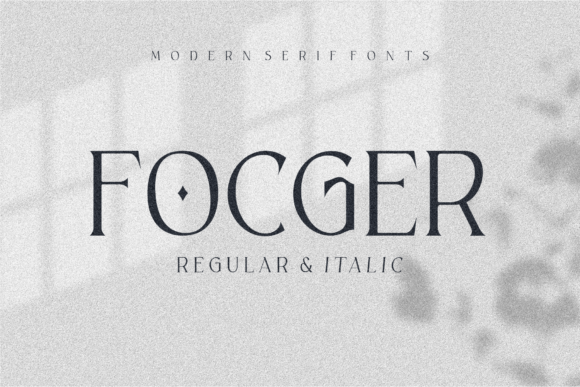
**Introducing Focger: The Captivating Serif Font for Unforgettable Impressions**
In the realm of typography, where words take flight and meanings soar, Focger emerges as a beacon of elegance and distinction. Crafted with meticulous care by the renowned 24Design Studios, this exquisite serif font possesses an inherent charm that captivates the senses and leaves an indelible mark on the digital canvas.
Focger's slender strokes and graceful curves exude an air of sophistication and refinement. As its characters dance across the screen, they evoke a sense of timeless allure, reminiscent of classic literature and treasured heirlooms. This font is a testament to the enduring power of typography, where form and function intertwine seamlessly to create an unforgettable user experience.
Whether you seek to elevate the visual appeal of your web designs, craft unforgettable business cards, or add a touch of sophistication to any creative endeavor, Focger stands as the perfect choice. Its versatility knows no bounds, making it indispensable for a wide range of applications.
With Focger at your fingertips, you unlock the ability to transform ordinary designs into captivating masterpieces. Its thin, elegant silhouette lends itself beautifully to small display sizes, ensuring that your message captivates attention even on the most compact screens. Whether it's a captivating logo, an informative infographic, or an immersive website, Focger empowers you to create visual experiences that resonate with your audience and leave a lasting impression.
Beyond its aesthetic appeal, Focger embodies the essence of storytelling. Its graceful curves and delicate flourishes invite the reader into a world of imagination and inspiration. Each character becomes a vessel for conveying your message with clarity and impact. Whether you're crafting a compelling narrative or sharing important information, Focger ensures that your words command attention and resonate with your audience on a deeper level.
Embrace the allure of Focger today and embark on a typographic journey that transcends the ordinary. Allow its timeless elegance to elevate your designs to new heights of sophistication and captivate the hearts and minds of your audience. Focger is more than just a font; it's an investment in the power of visual communication, an instrument for crafting unforgettable experiences that will endure the test of time.